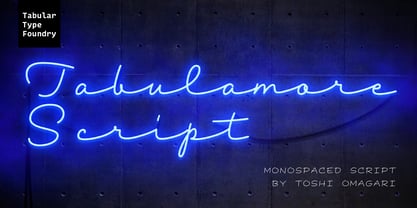
Tabulamore Script
by Tabular Type Foundry
Tabulamore Script Font Family was designed by Toshi Omagari and published by Tabular Type Foundry. Tabulamore Script contains 10 styles and family package options.
About Tabulamore Script Font Family
Tabulamore is a monospaced script typeface with two goals: to make a script face that looks as natural as possible within the limitation of monospace, and to offer better all-cap solution where many script typefaces fail to address. The typeface style is generally a loosely spaced casual script, whose spacing allows big letters like M W m to fit comfortably. The automatic small cap part is based on so-called Architect�s Casual style, and shows up automatically depending on the context. As the name suggests, it is perfect for someone who likes to express their love in monospace format.